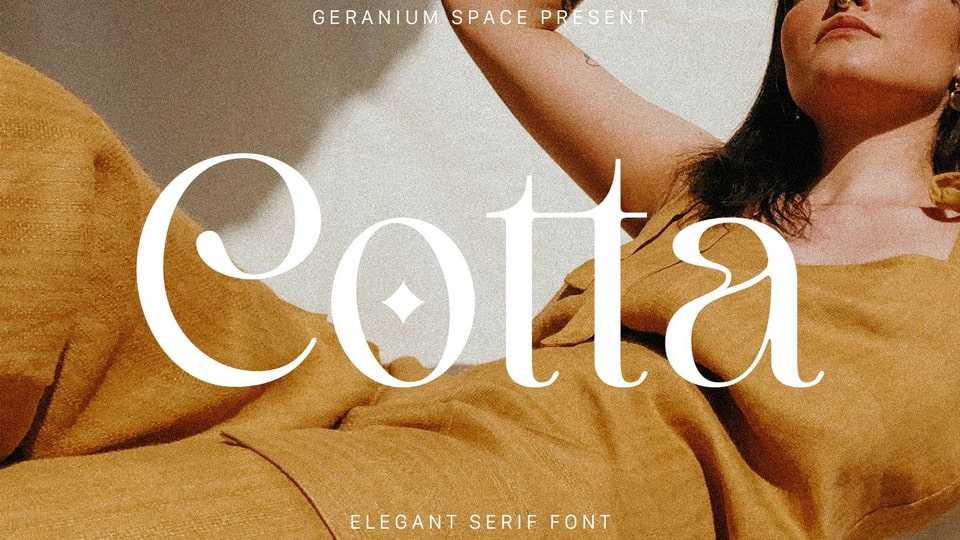
Download Cotta font, an elegant serif typeface designed in a feminine style. Cotta font is perfect for web design, branding, logos, invitations, magazines, and more.
Designer: Geranium Space